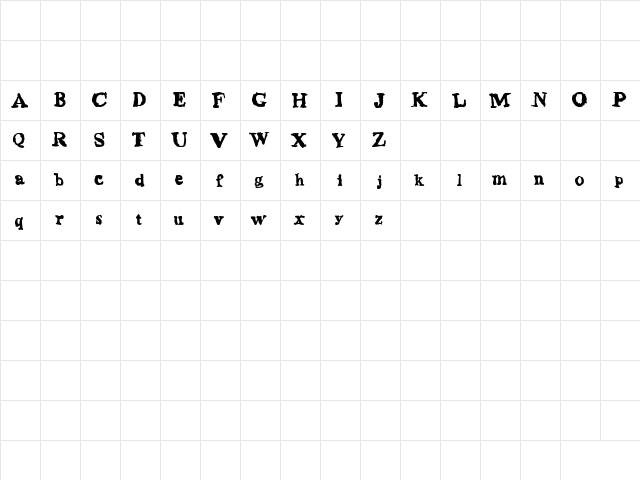
phentype Regular
Design Context for phentype Typeface
phentype is a composed and adaptable typeface that performs quietly and consistently across a wide range of design contexts.